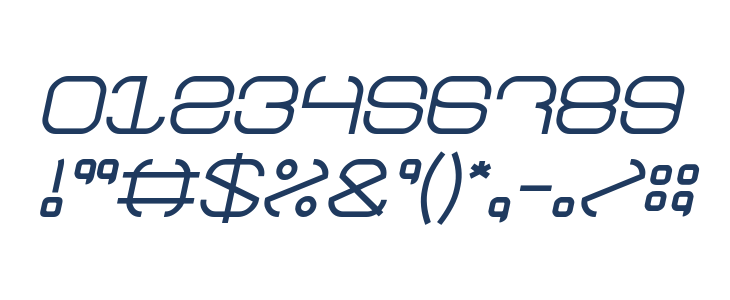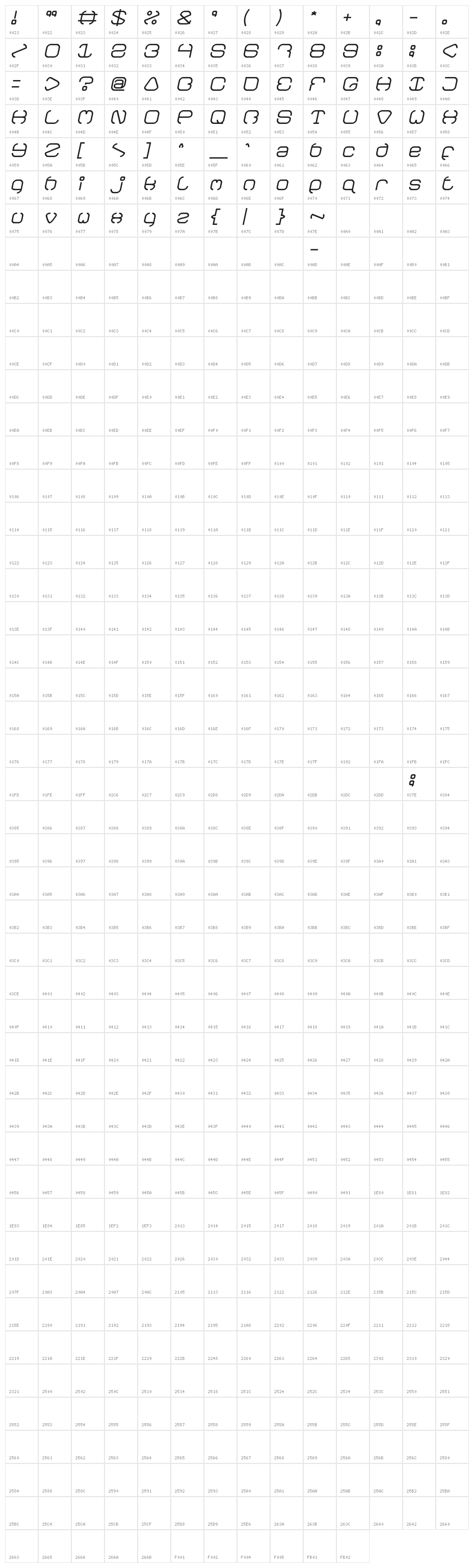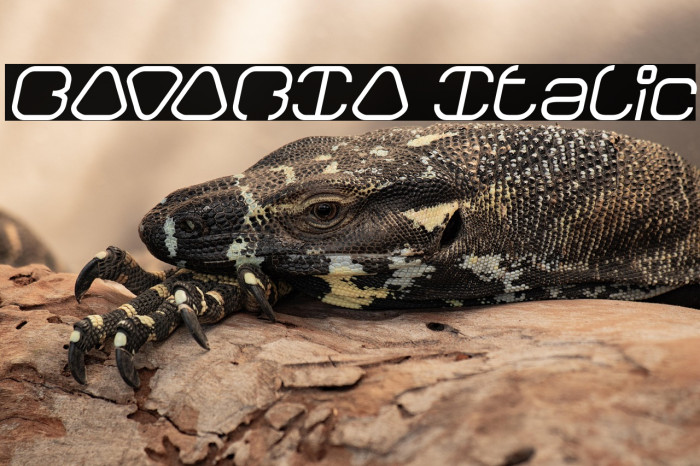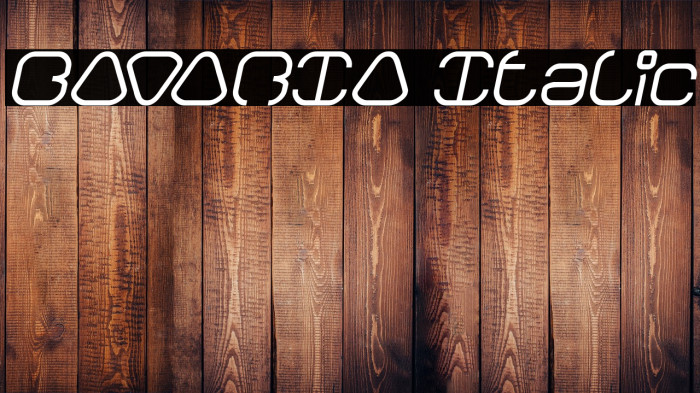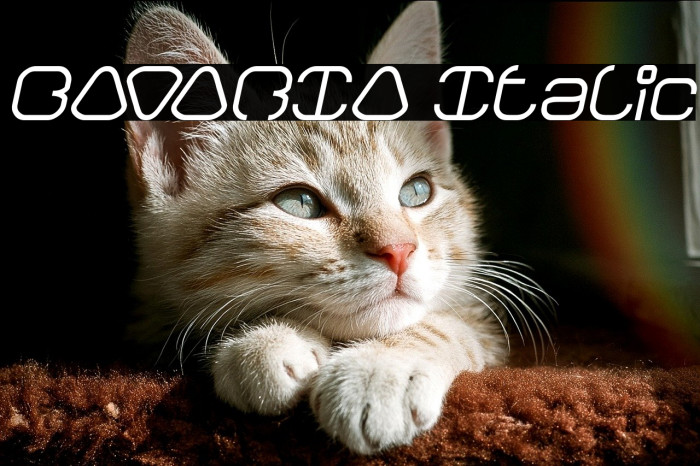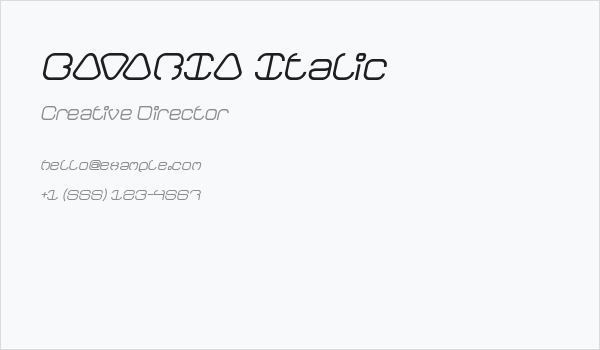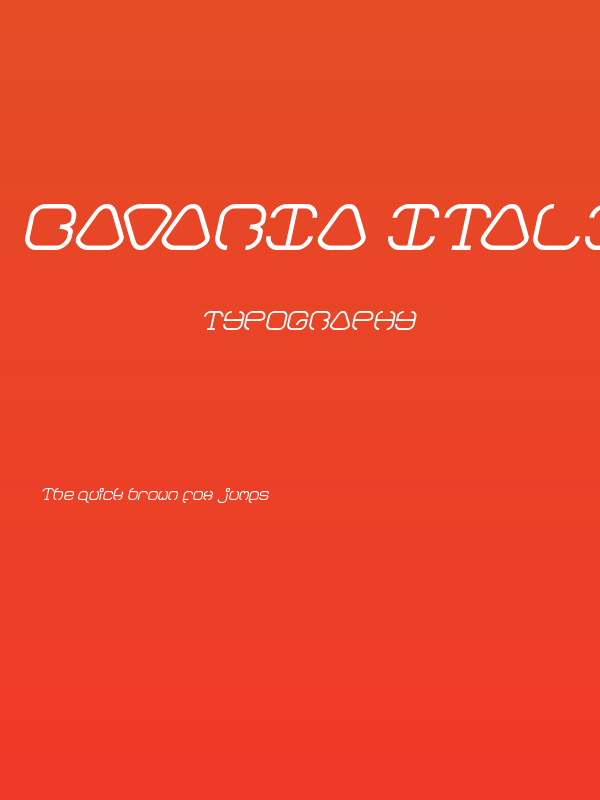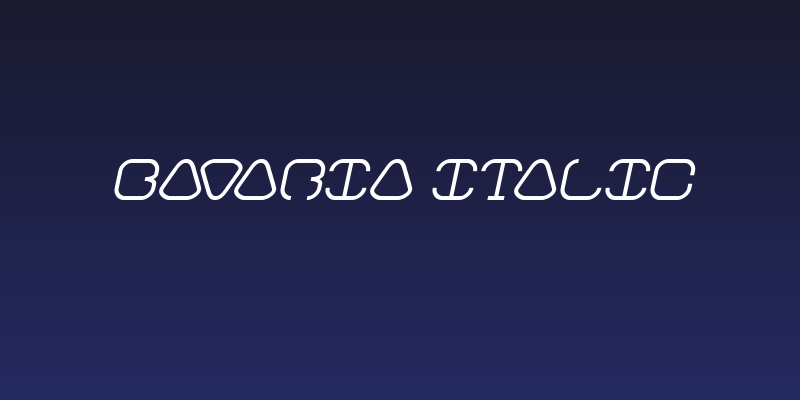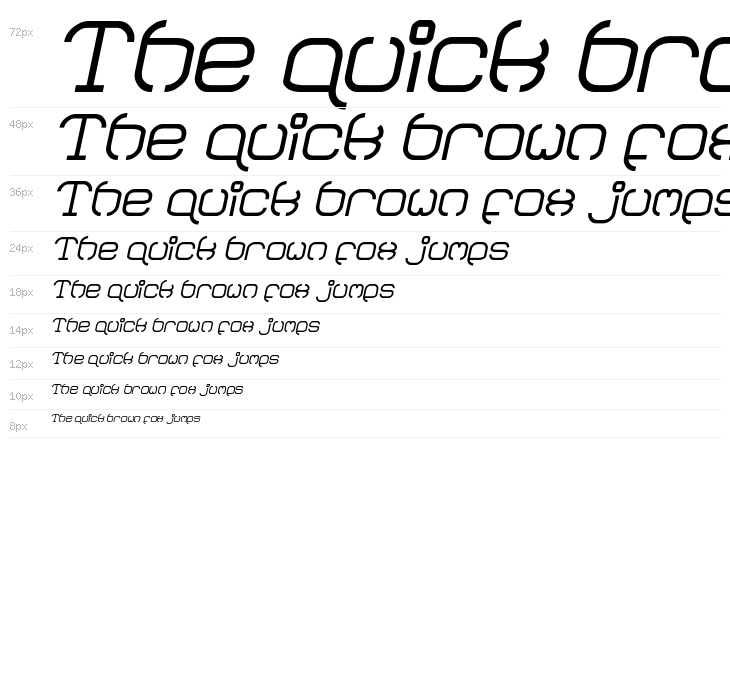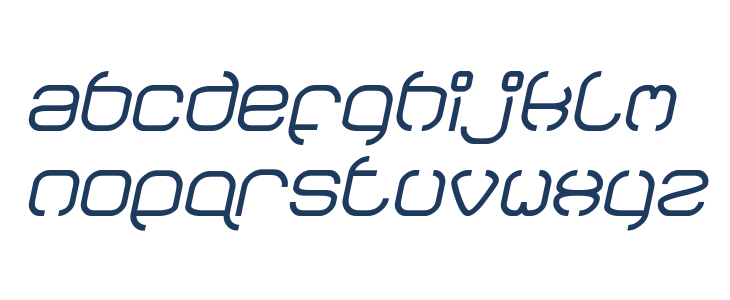
BAVARIA Italic Font
BAVARIA Italic Description
This font features a unique, futuristic design with a geometric and slightly rounded appearance. The characters are italicized, giving them a dynamic and forward-leaning look. The uppercase letters have a consistent height, while the lowercase letters maintain a similar style with a slightly smaller size. The numbers and special characters follow the same aesthetic, ensuring uniformity across the font. The strokes are consistent in thickness, offering a medium contrast that enhances readability while maintaining a modern and sleek appearance. The overall style is contemporary, making it suitable for projects that require a cutting-edge and innovative look.